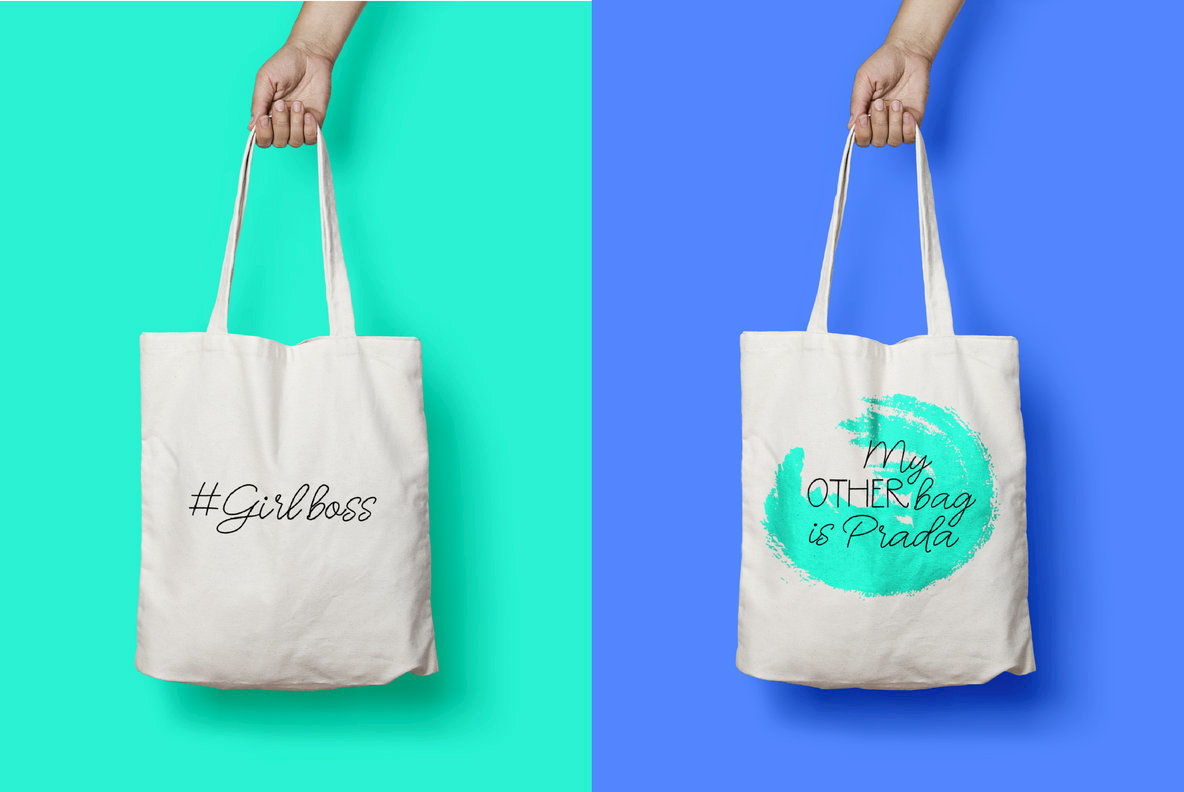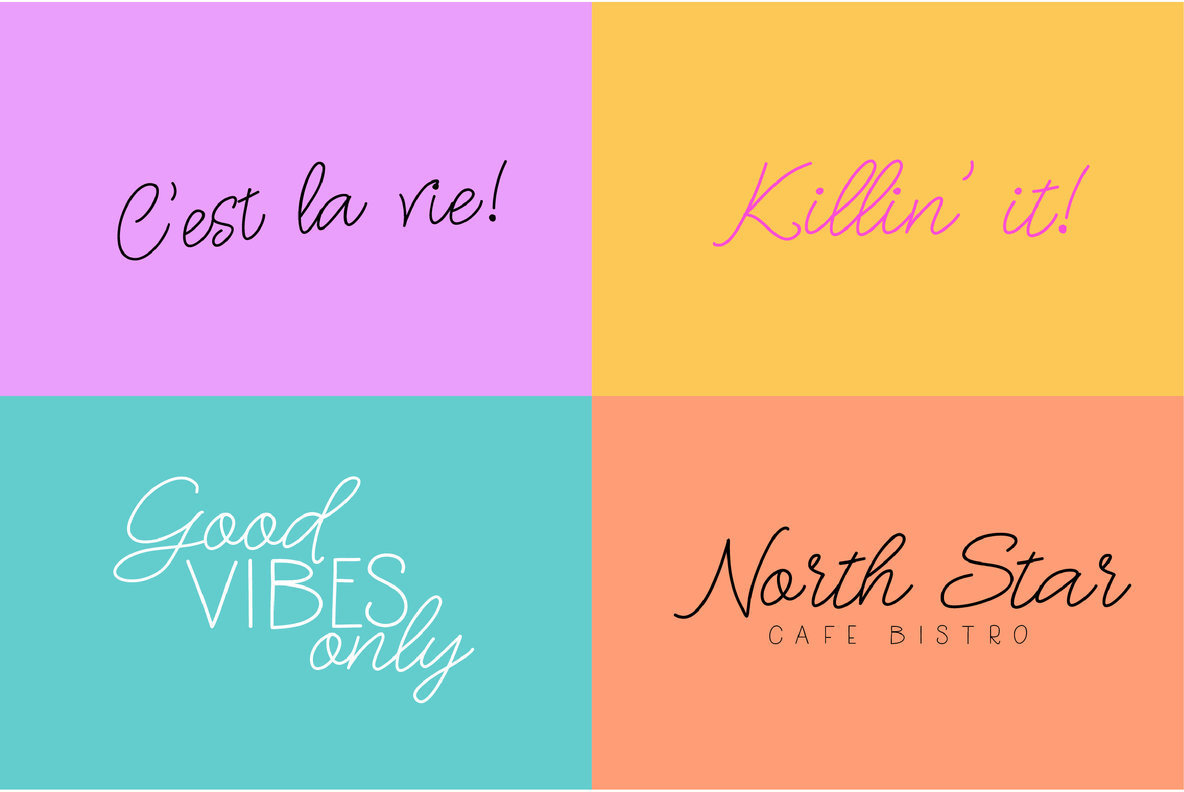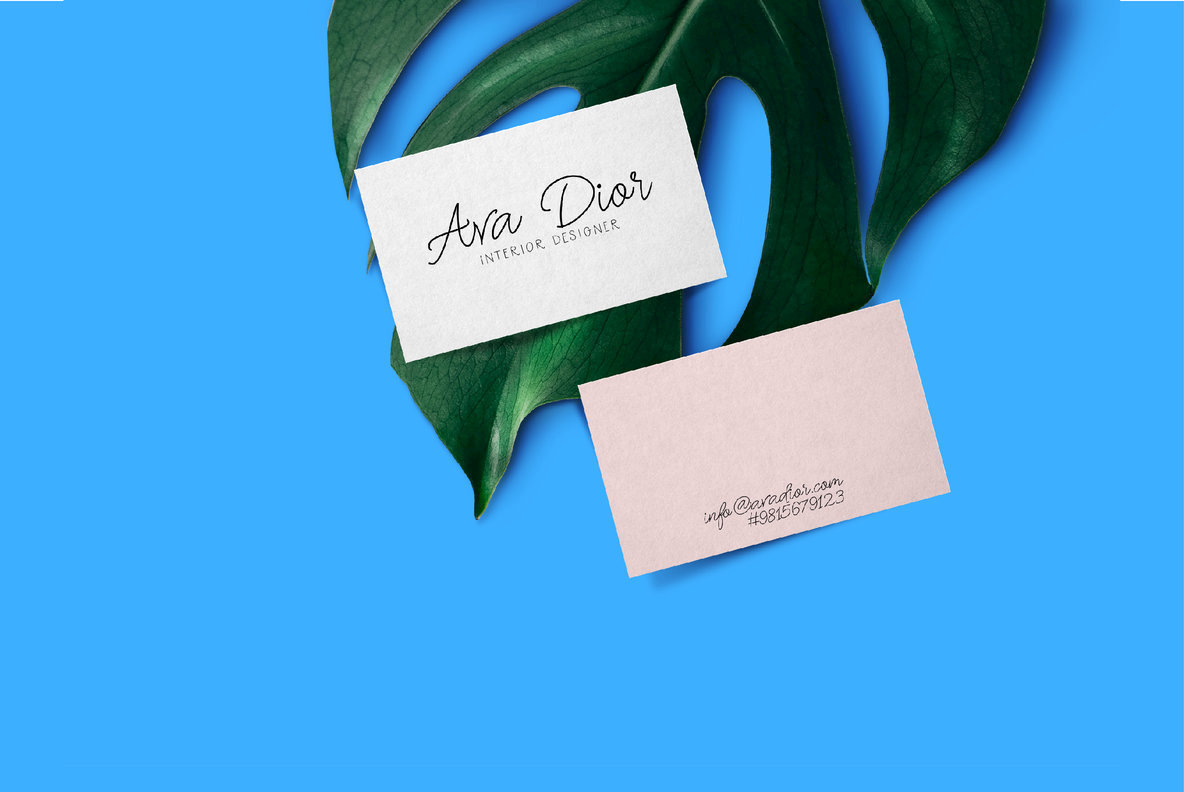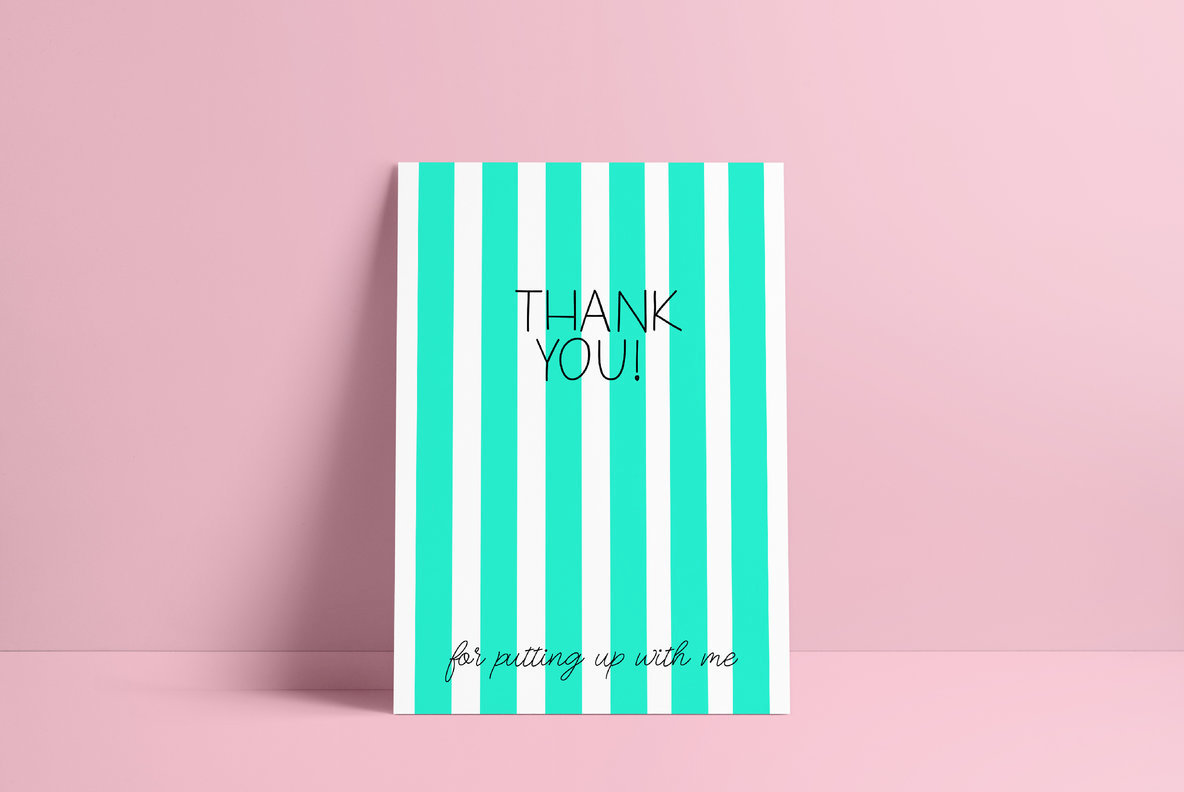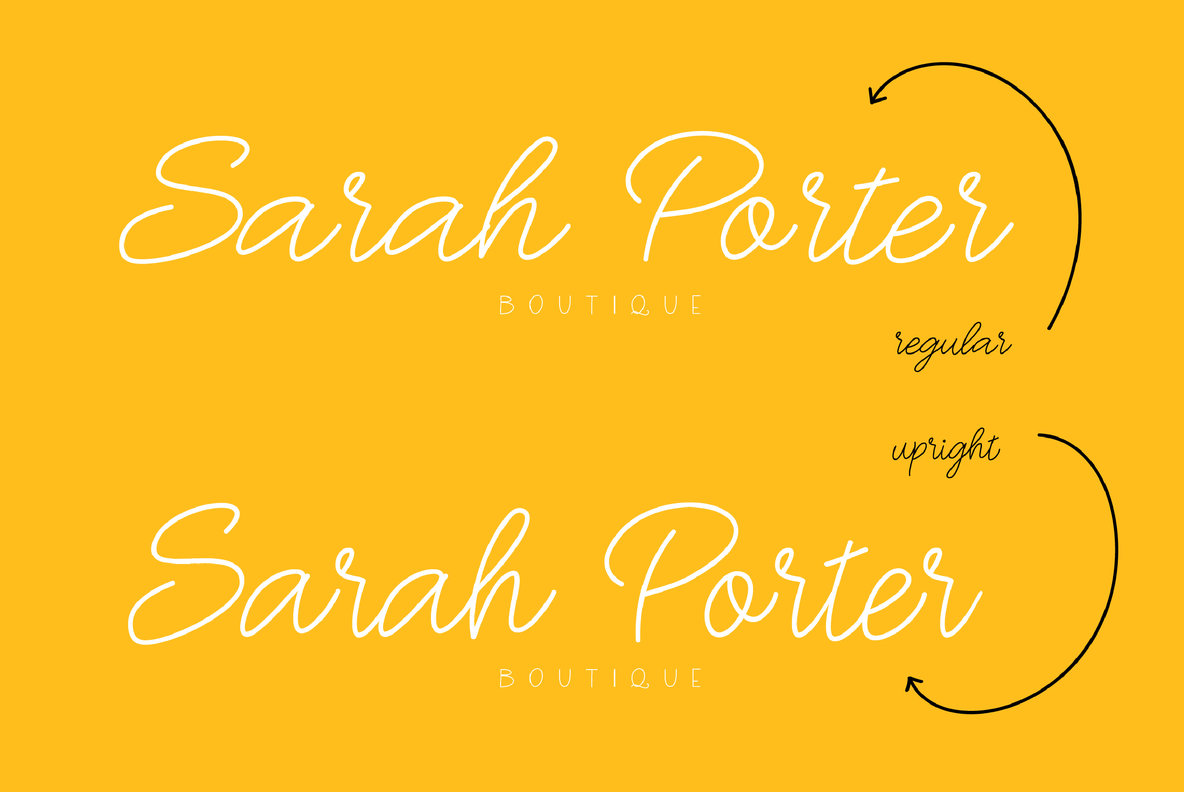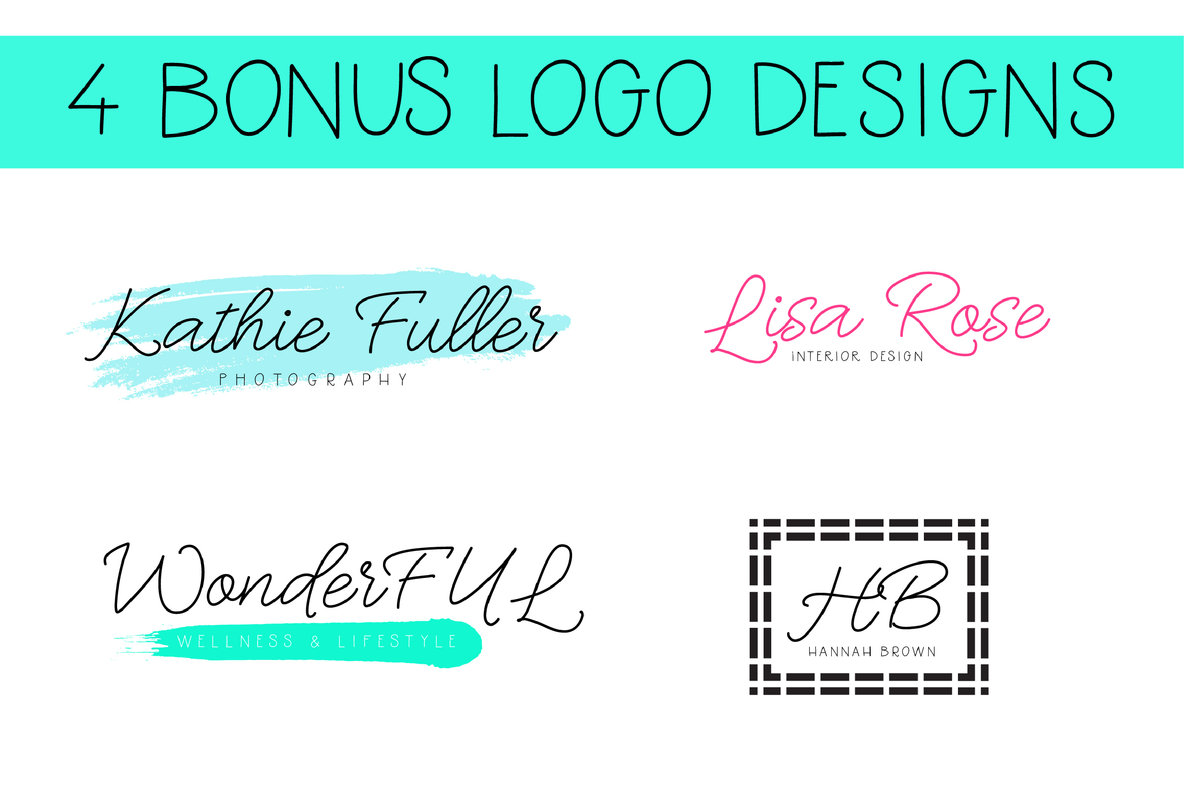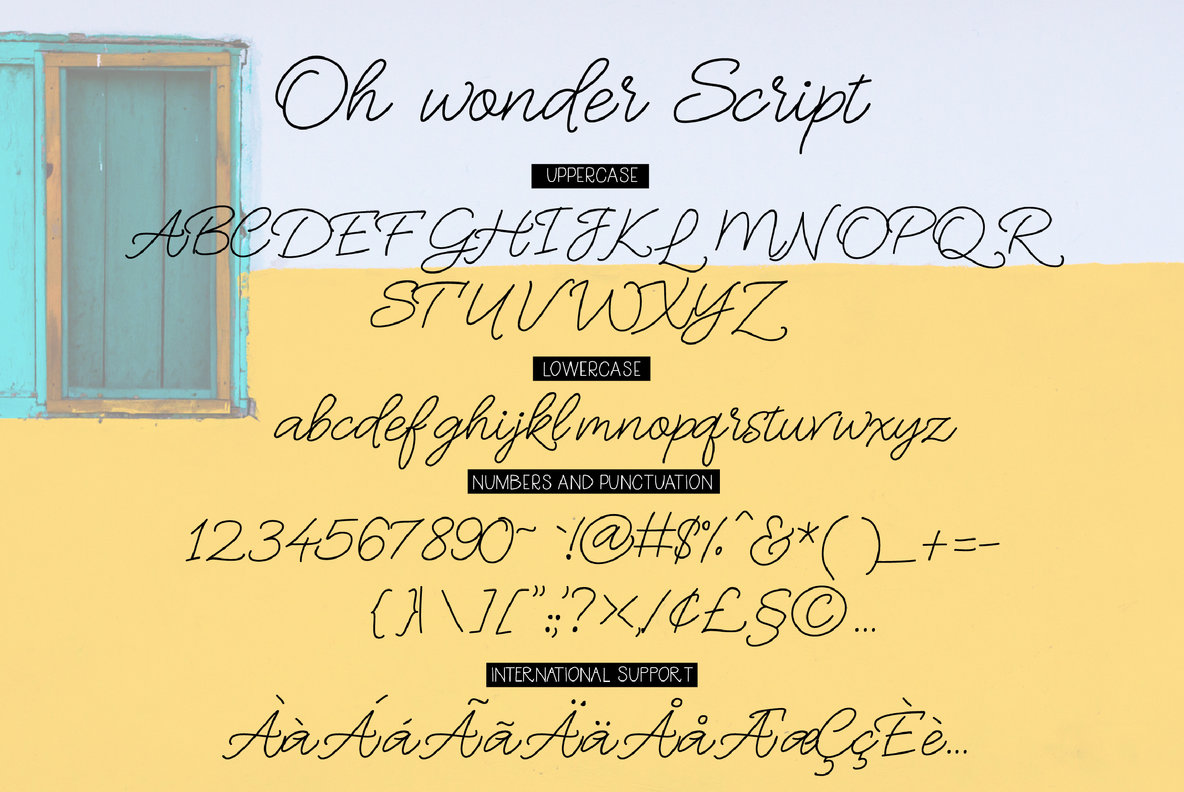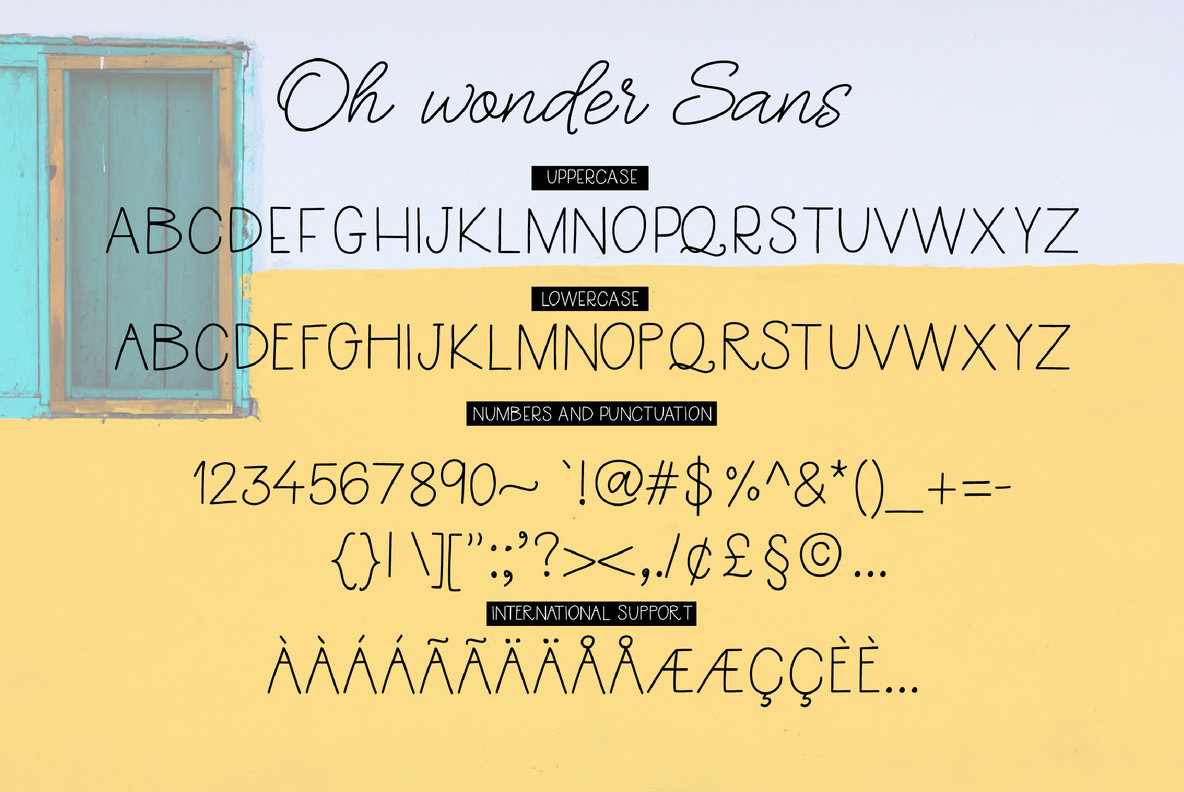
Oh Wonder Font
Oh Wonder is a compelling two-font family that combines the charm of a monoline handwritten cursive script with the clarity of a monoline sans serif font. Designed with branding and packaging in mind, this font duo is a versatile choice for creating stunning greeting cards, elegant logos, stylish apparel designs, and inviting home decor pieces. Its adaptable nature makes it suitable for a myriad of creative applications. The collection also includes an alternate style of the Oh Wonder script with an upright orientation, offering even more design possibilities. This font family comes with four bonus logo templates to give you a head start on your next creative endeavor.Oh Wonder: A Versatile Font Duo for Creative Projects